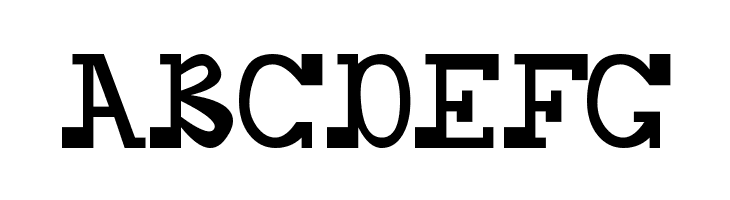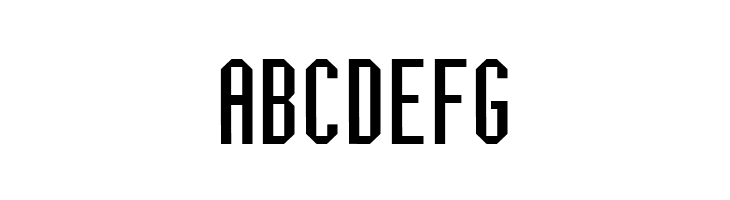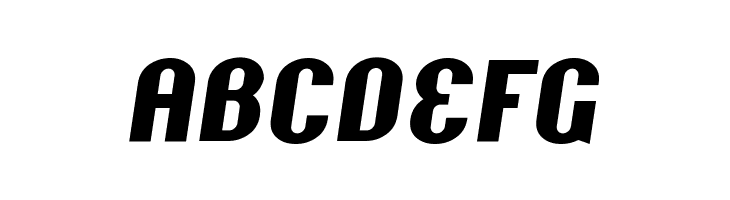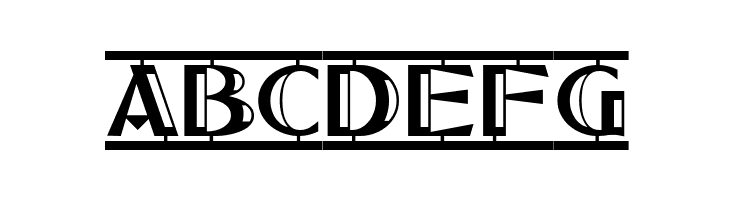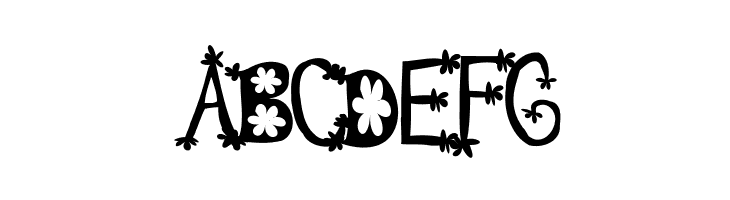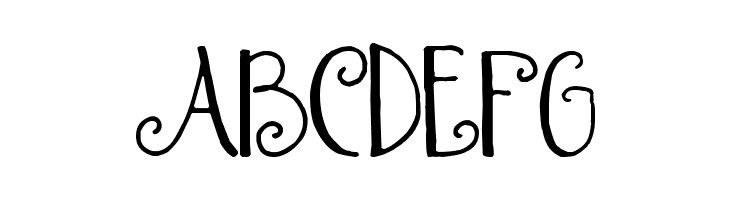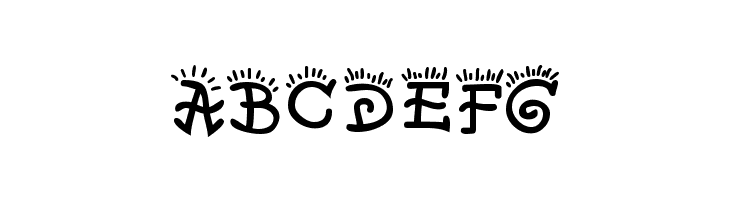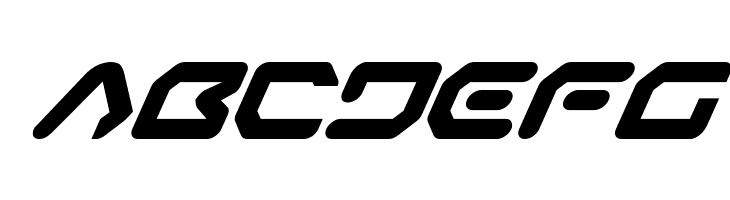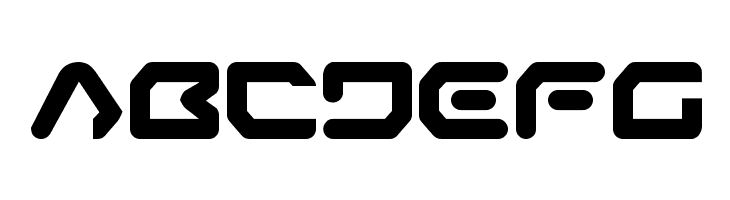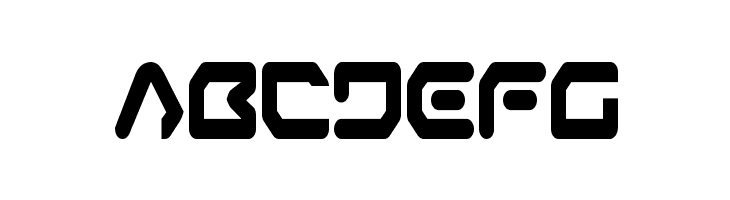
A bold, condensed font with strong vertical emphasis and minimal serifs.
A bold, playful font with unique twists and exaggerated serifs.
A bold, playful font with whimsical lowercase letters and thick strokes.
A bold, italic font with a modern and dynamic style.
A bold, decorative font with geometric influences and high contrast.
A futuristic, angular font with geometric shapes and sharp edges.
A playful, bold, and hand-drawn style font with rounded letterforms.
A bold, sans-serif font with a shaded, three-dimensional effect.
A whimsical and playful font with decorative swirls and artistic flair.
A bold, outlined font with a playful and modern aesthetic.
A bold, angular font with a three-dimensional effect, perfect for modern and edgy designs.
A bold, italic, futuristic font with geometric shapes and a dynamic style.
A futuristic, geometric font with bold, angular shapes and a digital aesthetic.
A futuristic, geometric font with bold, angular shapes and a condensed form.
A bold, futuristic font with geometric, rounded characters.
A bold, brush-like font with dynamic, hand-painted strokes.
A playful, hand-drawn font with a dynamic and artistic style.
A modern, geometric font with a doubled line effect for added depth.
A decorative blackletter font with shadow effects, offering a classic and dimensional look.